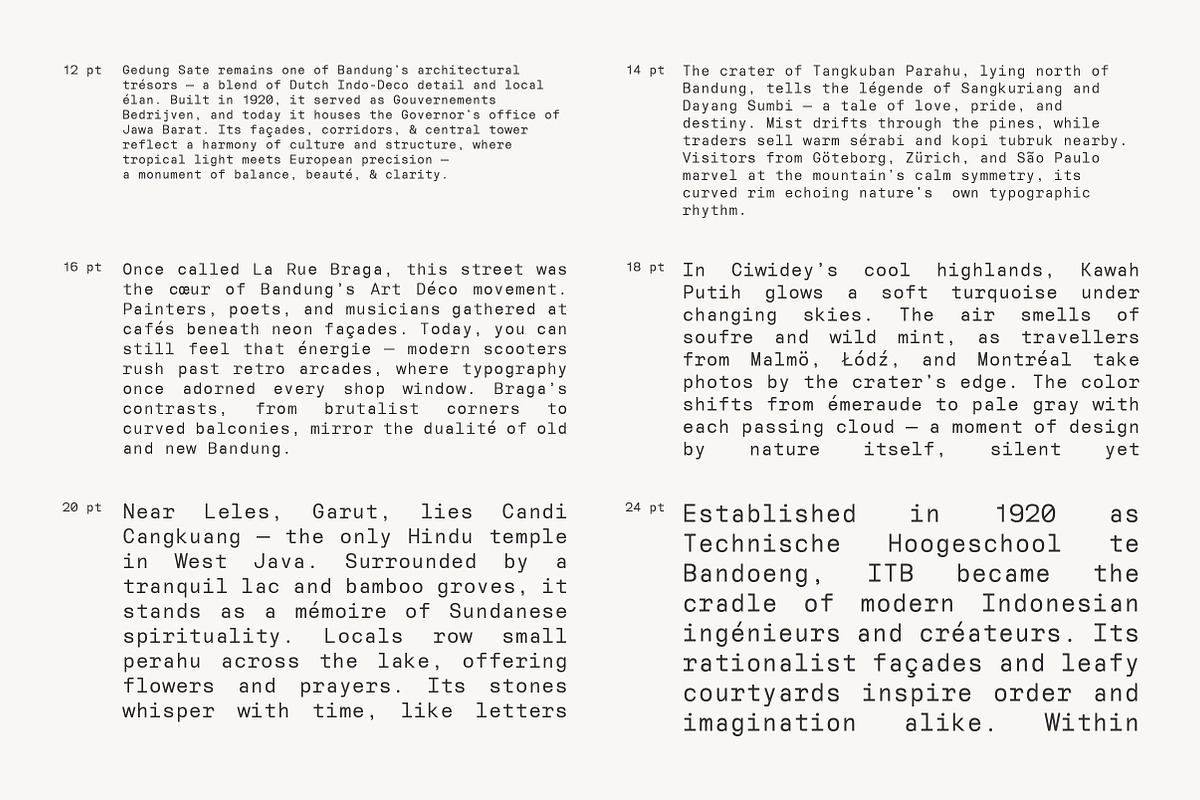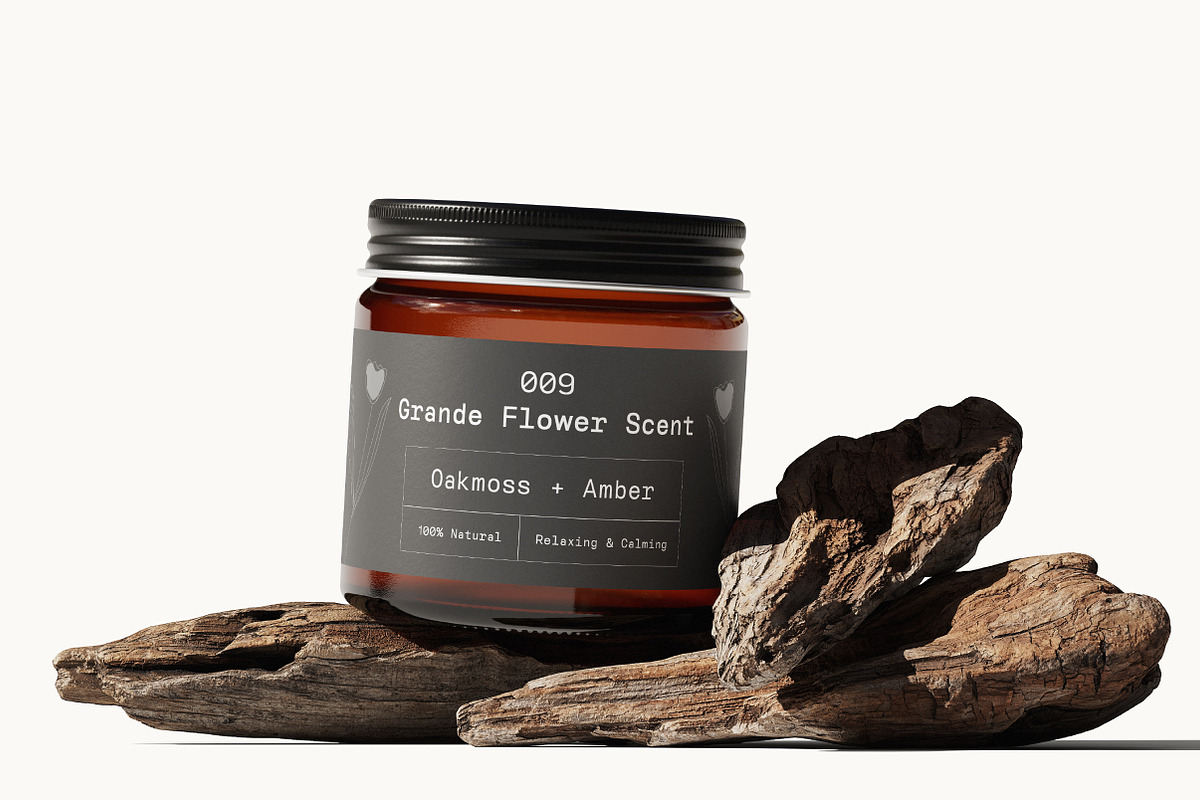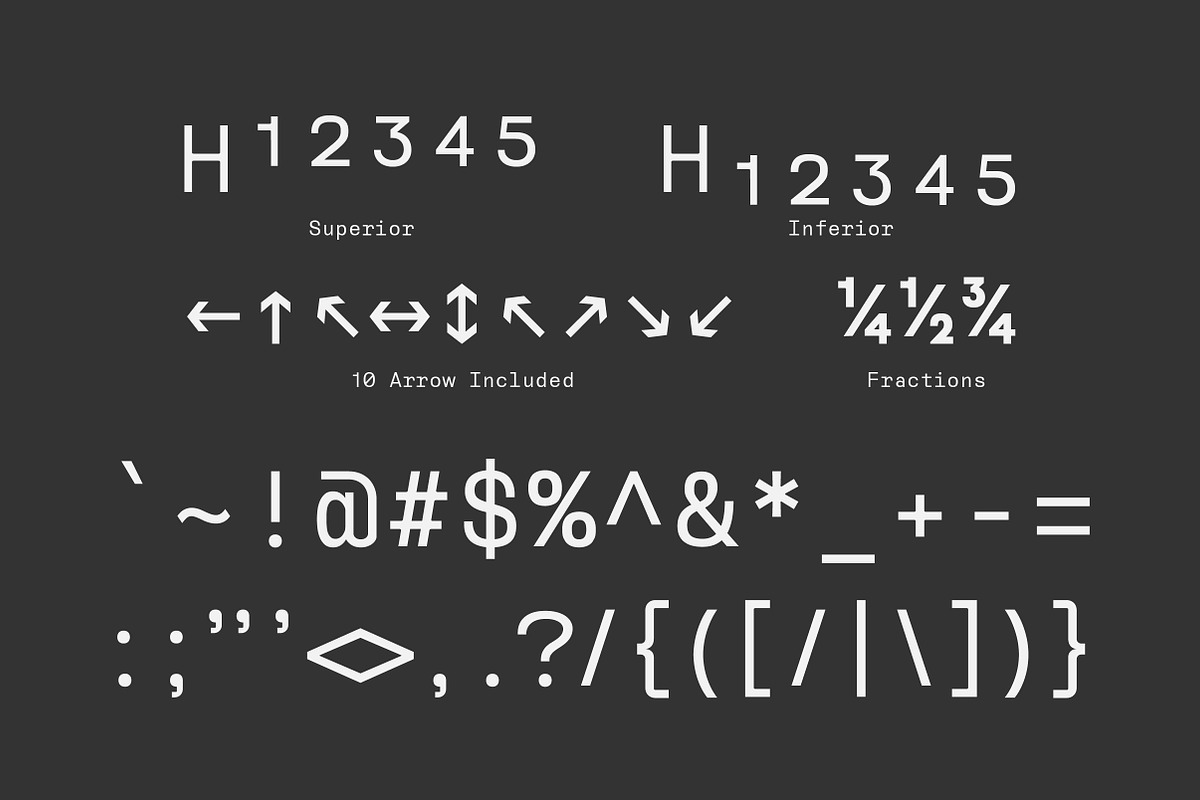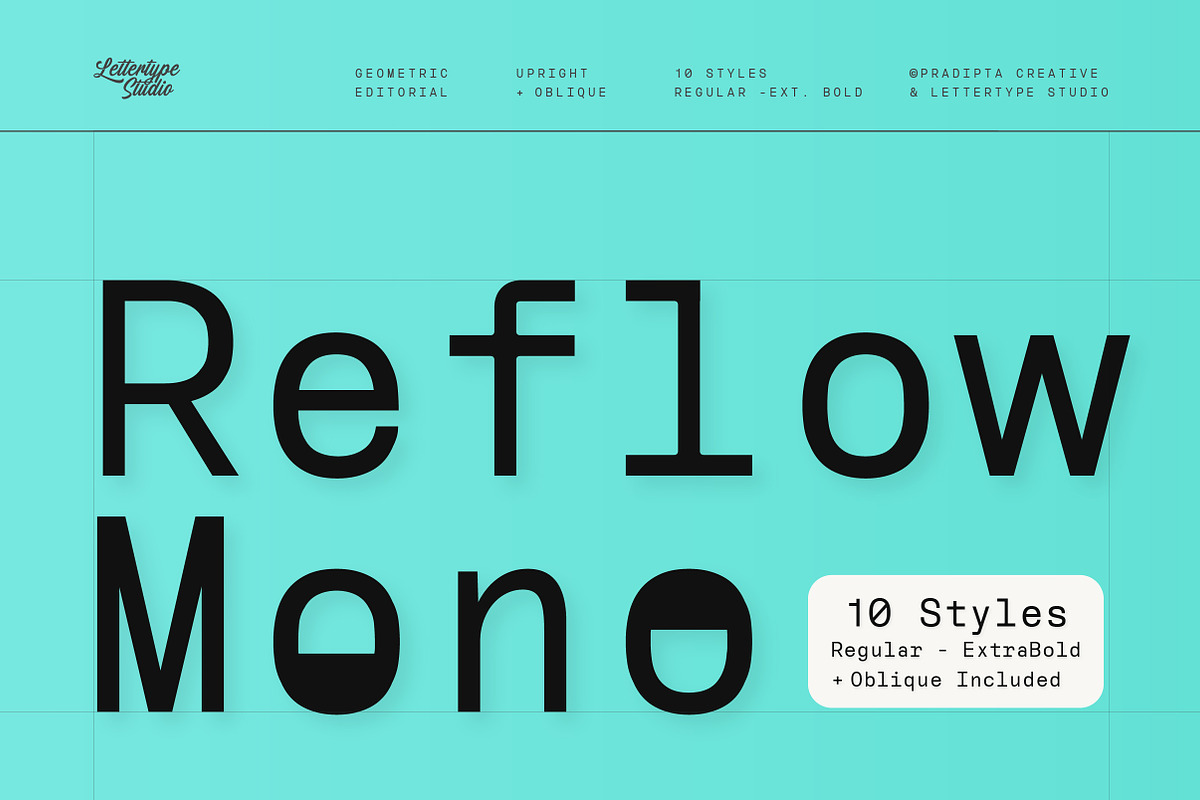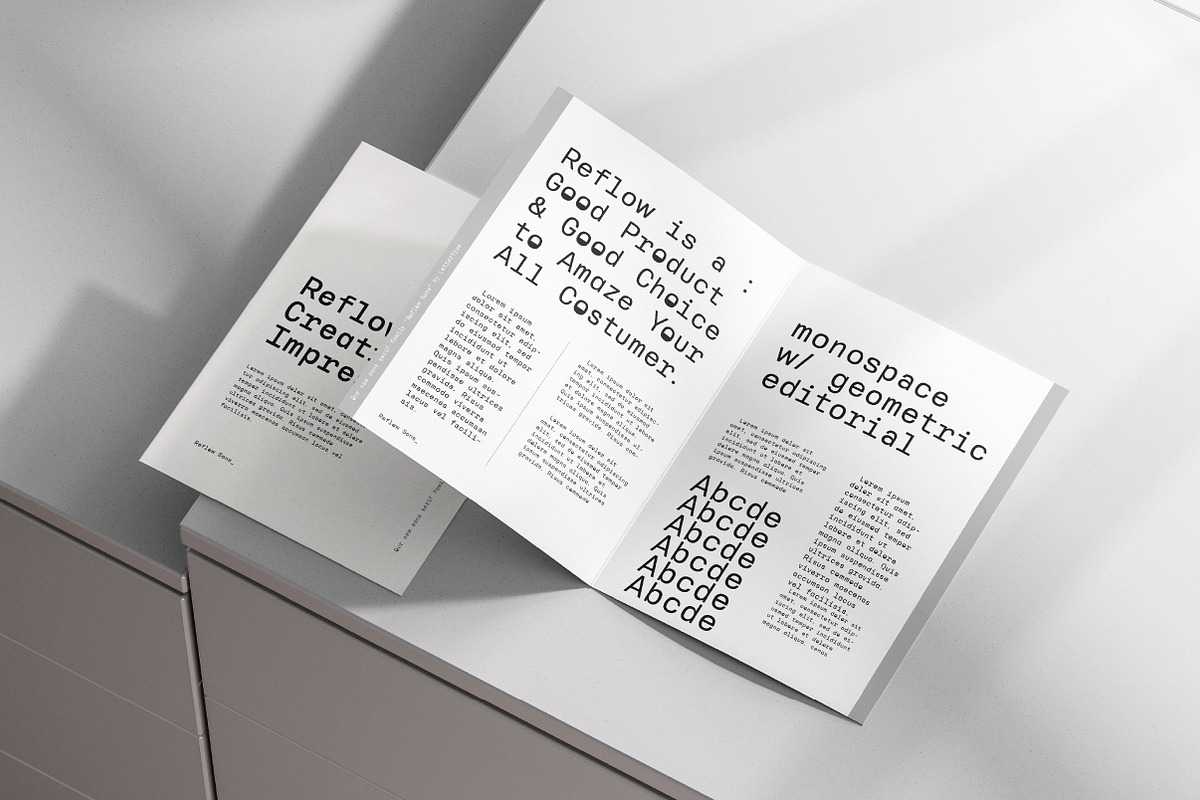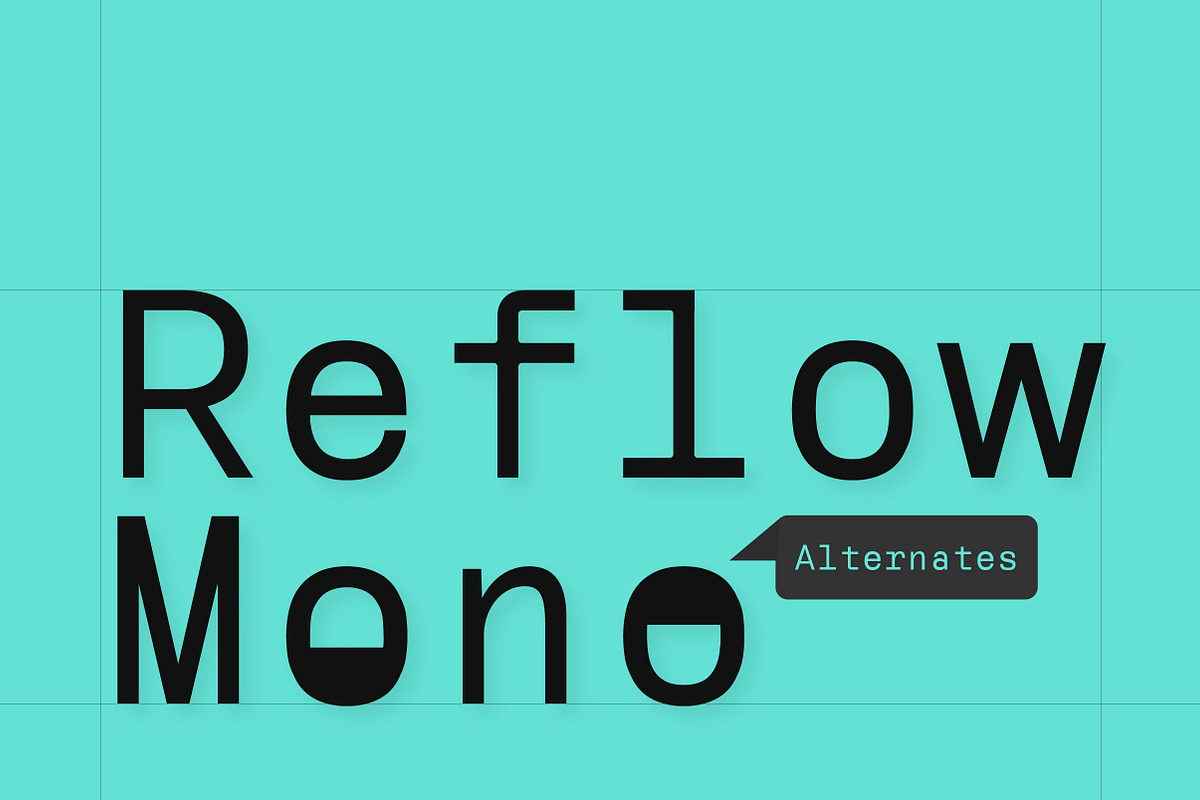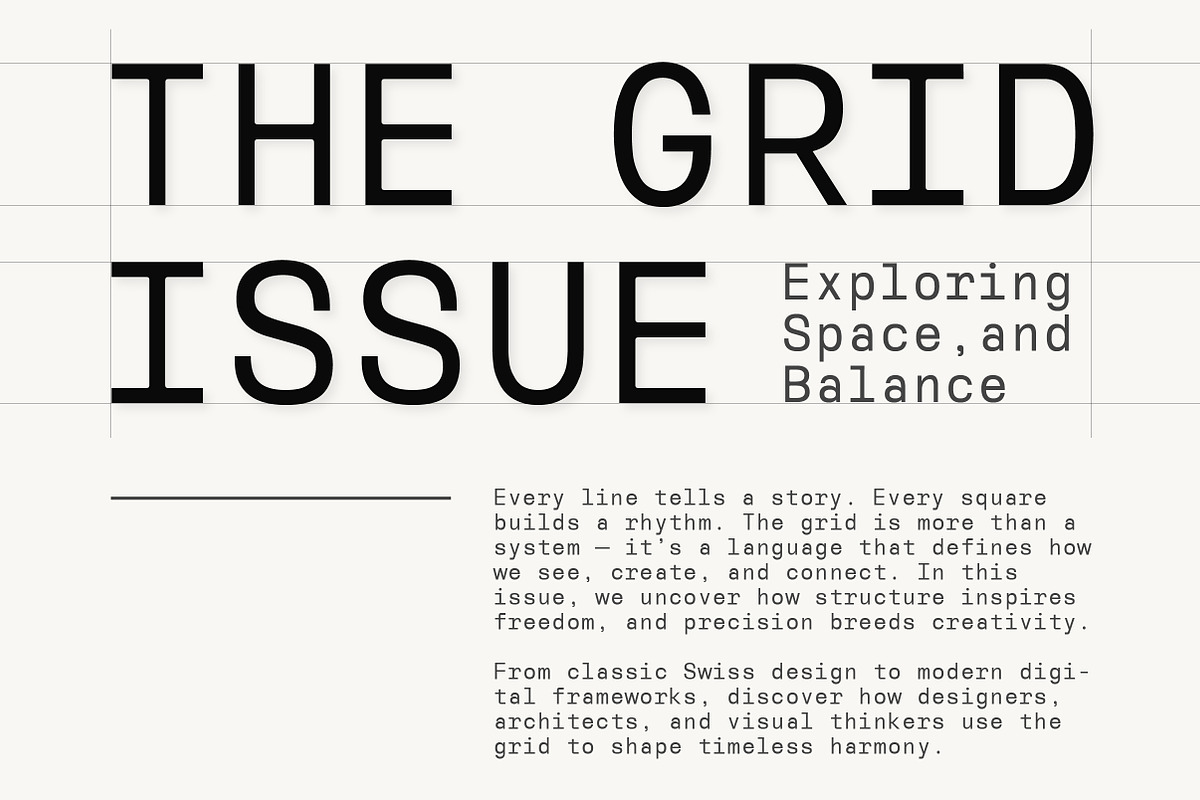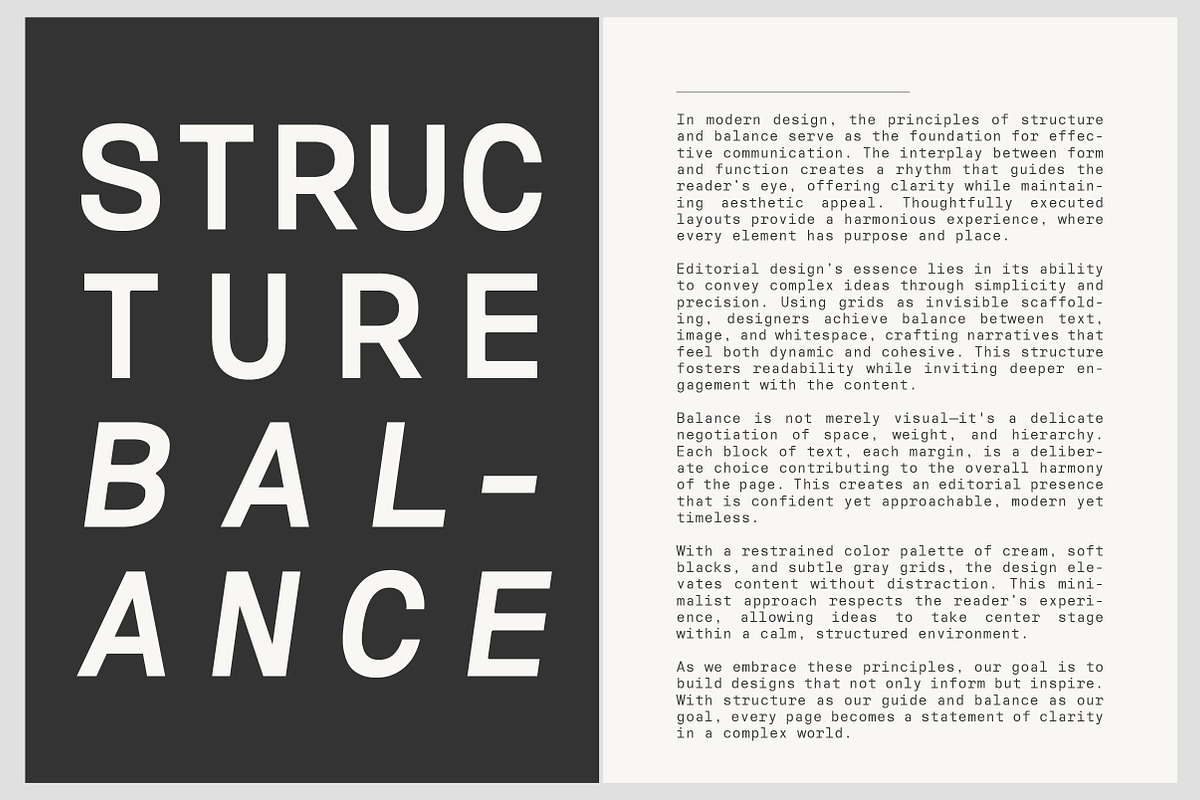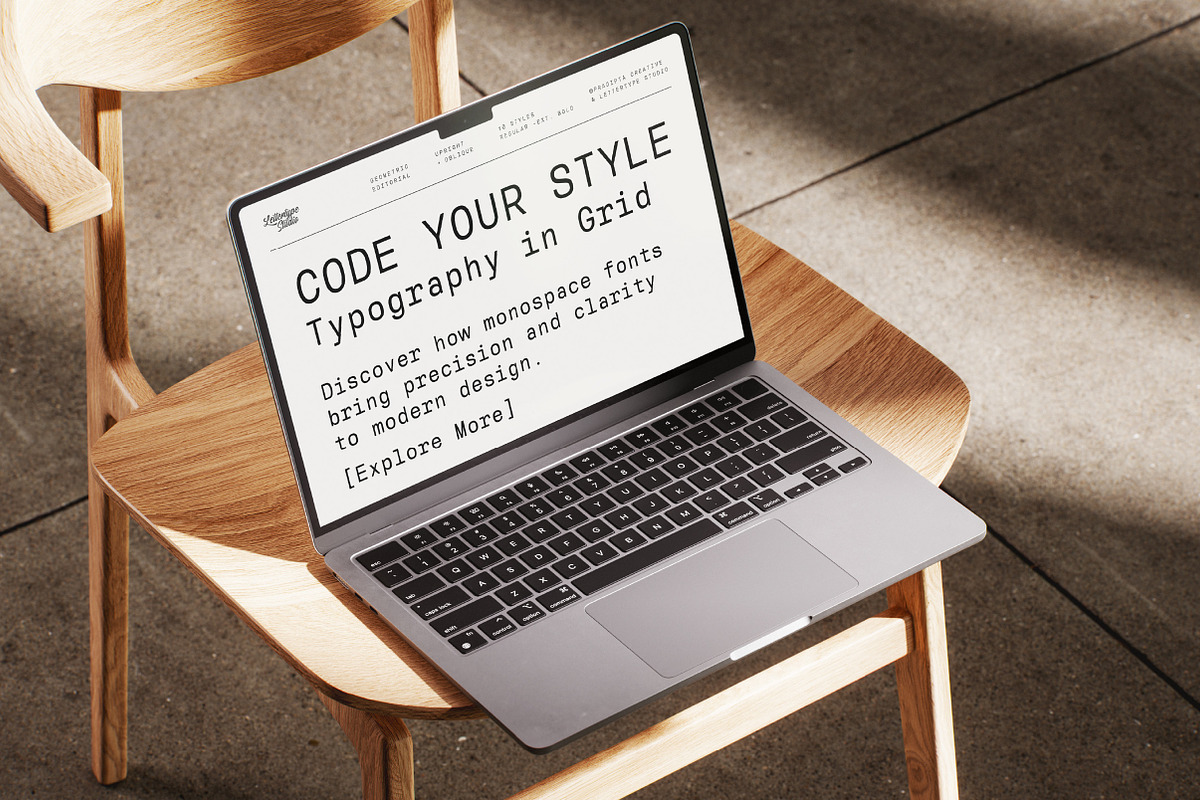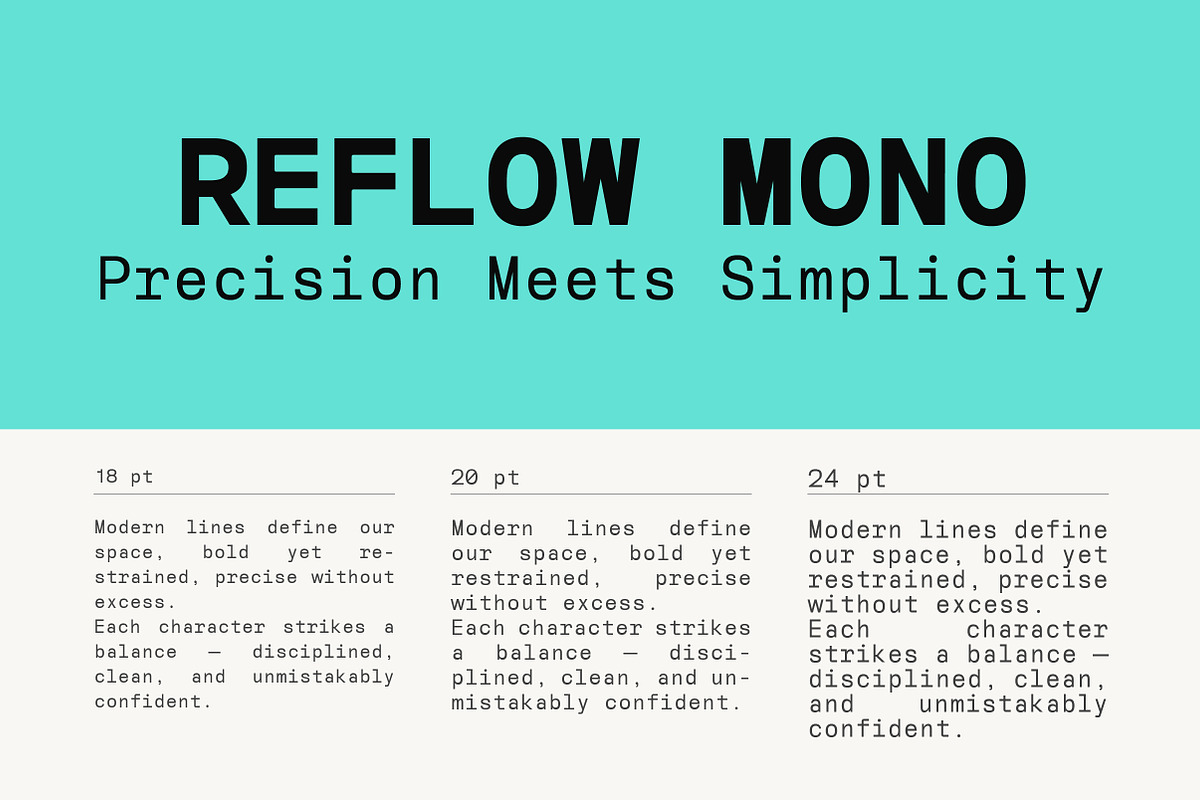
Reflow Mono is the monospaced evolution of Reflow Sans — a clean geometric typeface reimagined for editorial use and structural harmony. Each glyph is drawn with meticulous balance inside a fixed 640-unit grid, creating a rhythm that feels effortlessly aligned and visually consistent. Its calm geometry and understated character make it perfect for sophisticated branding and editorial layouts.
Designed for art directors, publishers, and minimalist designers, Reflow Mono bridges the gap between technical precision and typographic expression. Its 10-style family (Regular to ExtraBold with matching Italics) offers flexibility for both bold headlines and refined body text. Crisp, timeless, and confidently modern — Reflow Mono brings order and beauty to the grid.
Reflow Mono Features:
- 10 Styles (Regular, Medium, SemiBold, Bold, ExtraBold + Italics)
- Upright & Italic versions
- 484 Glyphs Total
- 270+ Languages Supported
- Full Fixed-Width Grid (640 units per glyph)
- Editorial and magazine layouts
- Branding and identity systems
- Minimalist posters and covers
- Web and UI headings
- Product packaging with structured type